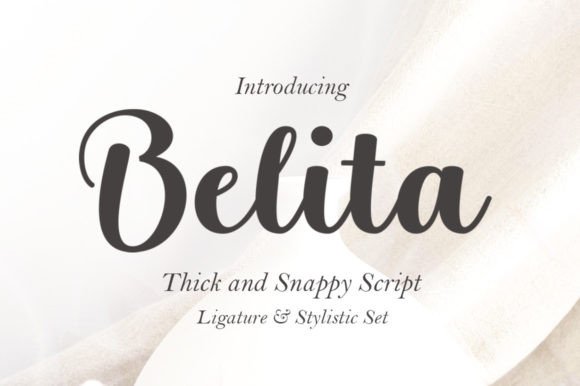
Prepare yourself to be mesmerized by Belita, a captivating script font family that echoes the spirit of timeless elegance and modern appeal. Designed with a meticulous attention to detail by the skilled hands at gatype, this font exudes a personality that is both charming and versatile, making it the perfect choice for transforming your creative visions into tangible masterpieces.
Step into a realm of endless possibilities, where Belita's graceful strokes and elegant curves dance harmoniously across the page. Its distinctive character adds a touch of artistry to your designs, whether you're crafting heartfelt invitations, elegant stationery, or mesmerizing wedding designs. Let Belita's allure enchant your social media posts, captivating your audience with its undeniable charm.
Unleash your creativity and watch as Belita elevates your branding efforts to new heights. Its versatile nature adapts seamlessly to a wide range of design projects, from sleek logos to eye-catching product packaging. Make a lasting impression with Belita's distinctive style, ensuring that your products stand out from the crowd.
Embark on a journey of self-expression and let Belita guide you through a world of visual storytelling. Create enchanting labels that adorn your products with a touch of sophistication. Enhance your photographs with Belita's delicate watermarks, adding a subtle layer of artistic flair to your captured memories. Celebrate life's special moments with Belita, transforming ordinary invitations into cherished keepsakes that reflect the joy and significance of the occasion.
With Belita at your fingertips, you possess the power to captivate and inspire. Its timeless beauty breathes life into your creative endeavors, leaving an indelible mark on the hearts of those who encounter it. Embrace the allure of Belita and elevate your designs to new heights of brilliance.